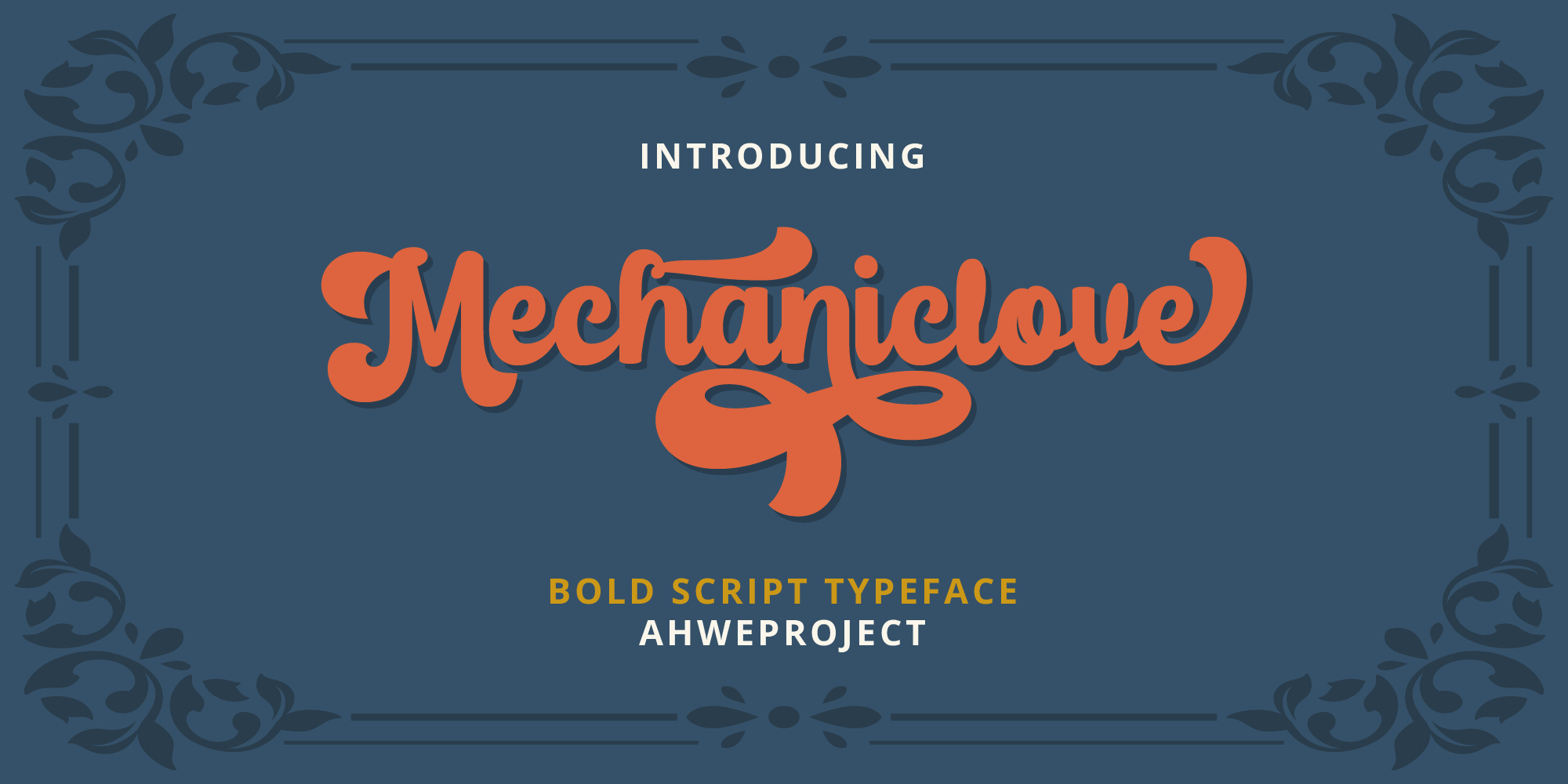
Mechaniclove Font is perfect for automotive repair shop branding, vintage garage signage, classic car restoration promotions, motorcycle club materials, industrial romance campaigns, steampunk wedding invitations, mechanical art projects, and heartfelt automotive communications.
This unique industrial typeface is exciting because it captures the passionate love affair between mechanics and their craft through sturdy letterforms that combine the rugged strength of machinery with the tender devotion of those who restore and maintain mechanical beauty.
The Mechaniclove Font family includes regular and heavy weights with mechanical alternates, industrial decorative elements, and automotive-inspired variants that enhance the passionate, craftsmanship atmosphere of any mechanical love story design project.
Passionate and industrial, Mechaniclove Font Free Download brings the deep love and mechanical devotion of automotive craftsmanship to contemporary typography through authentic industrial romance. This heartfelt font embodies the passionate relationship between skilled mechanics and the machines they lovingly restore, making it perfect for automotive professionals who understand that working with engines and metal is about more than repair—it's about preserving mechanical art and honoring craftsmanship traditions. Its sturdy character reflects the dedication and skill required to restore classic automobiles and the emotional connection that develops between craftsmen and their mechanical projects, resonating with car enthusiasts who appreciate the romance found in perfectly tuned engines and beautifully restored classics. Perfect for custom car shops and restoration specialists, this font ensures your message carries the mechanical authenticity and passionate craftsmanship that serious automotive work demands. Whether used for classic car shows or restoration business branding, Mechaniclove Font Free Download delivers the industrial romance and mechanical passion that connects with people who understand the deep emotional connection between skilled craftsmen and the mechanical beauty they create and preserve.